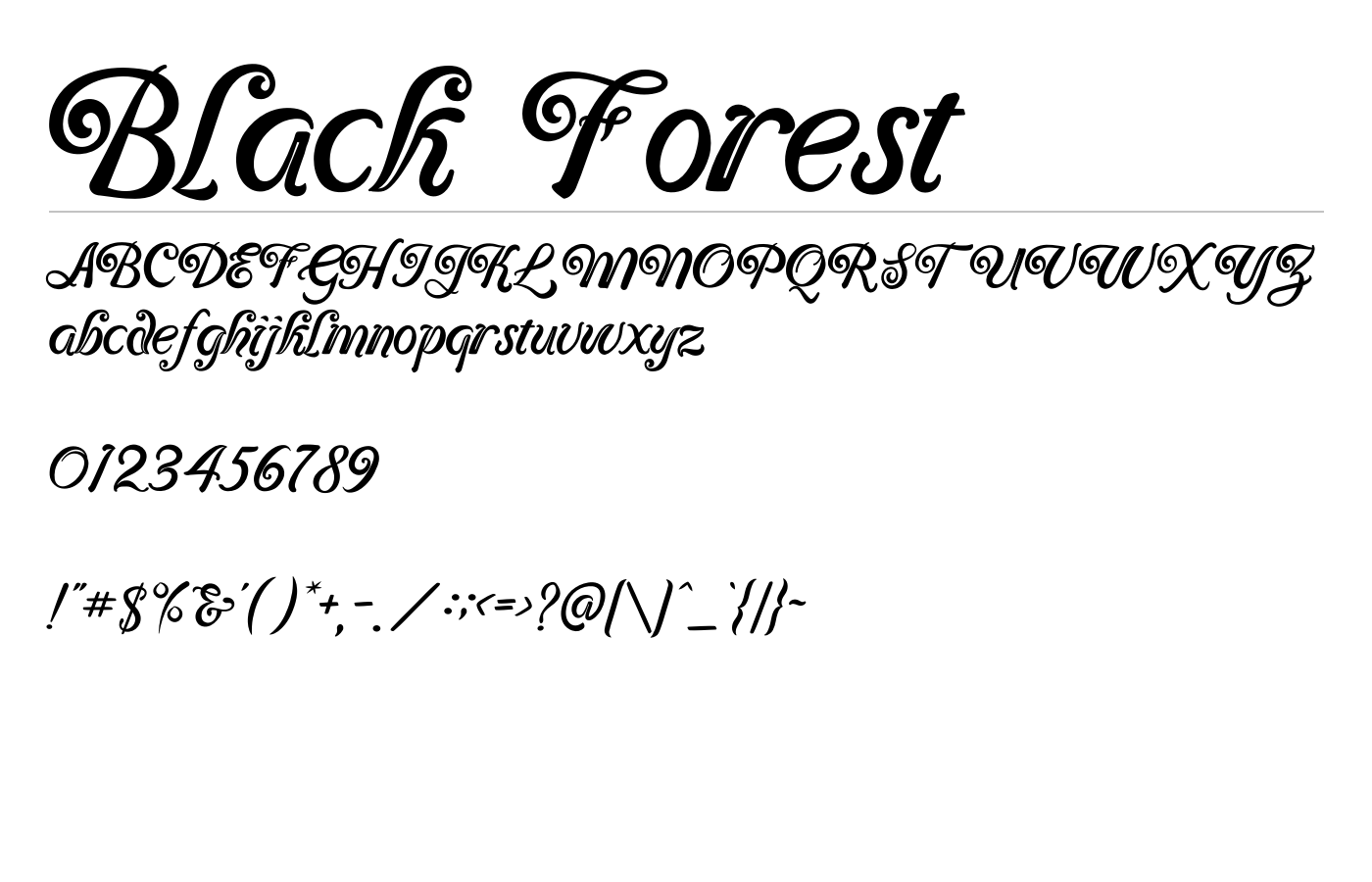
Black Forest is an elegant script font that features flowing, decorative letterforms with high contrast between thick and thin strokes. Its calligraphic style, with distinctive curls and swashes, lends a vintage and sophisticated feel, making it ideal for luxury branding, invitations, and decorative headlines. This font works best where a graceful, refined impression is desired, adding charm and personality to creative projects.
Black Forest Font
About Black Forest Font
| Font family | Black Forest Font |
| Designer | Dedi Mujiono |